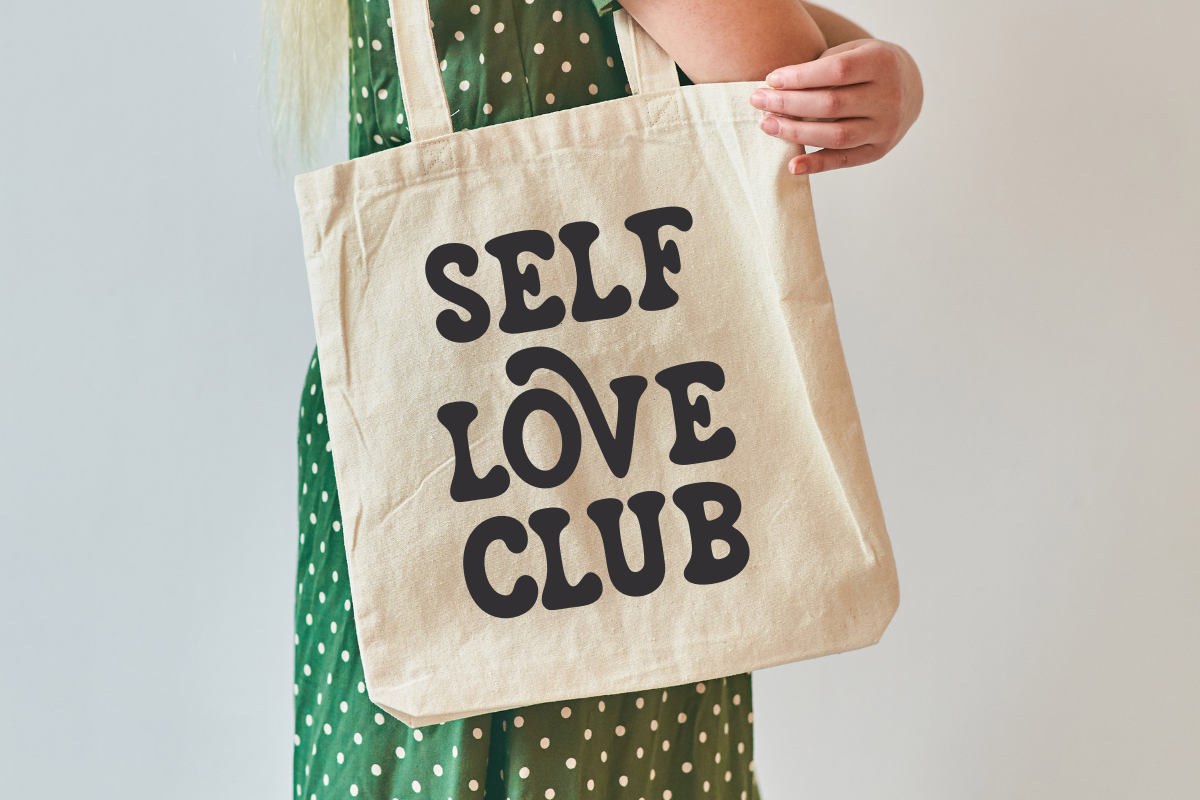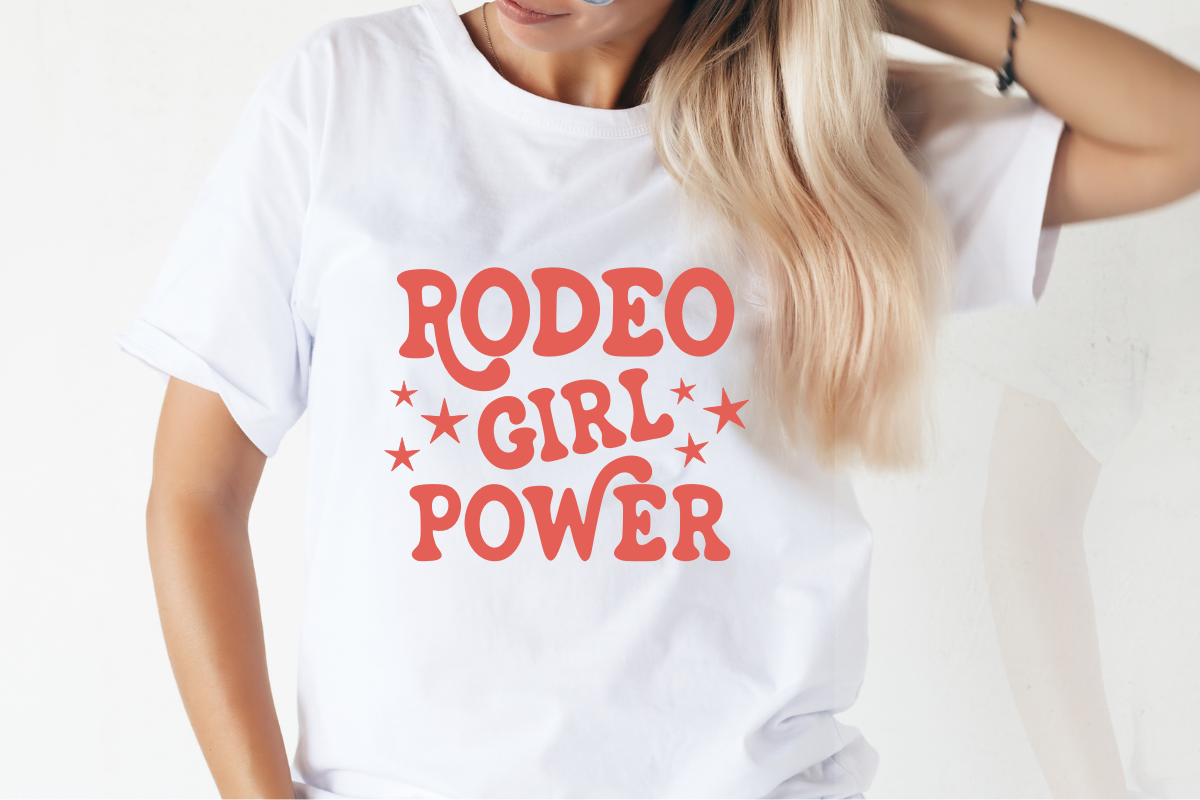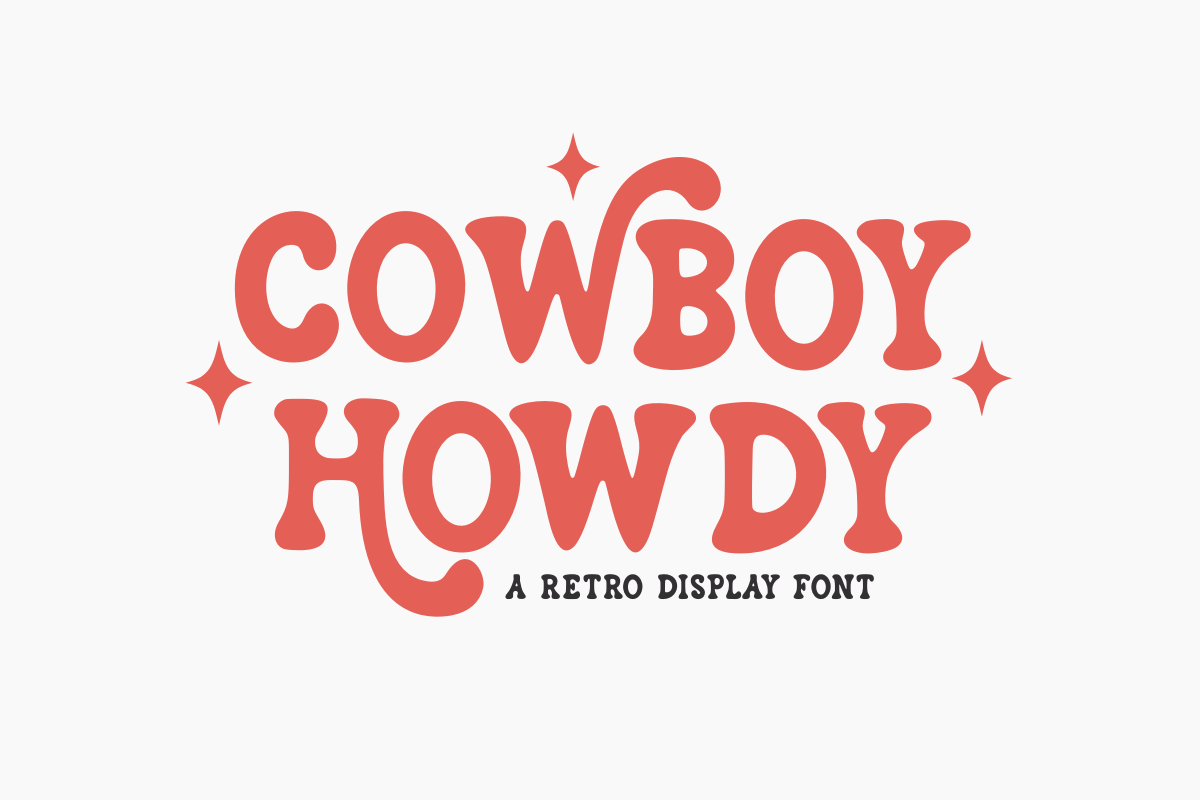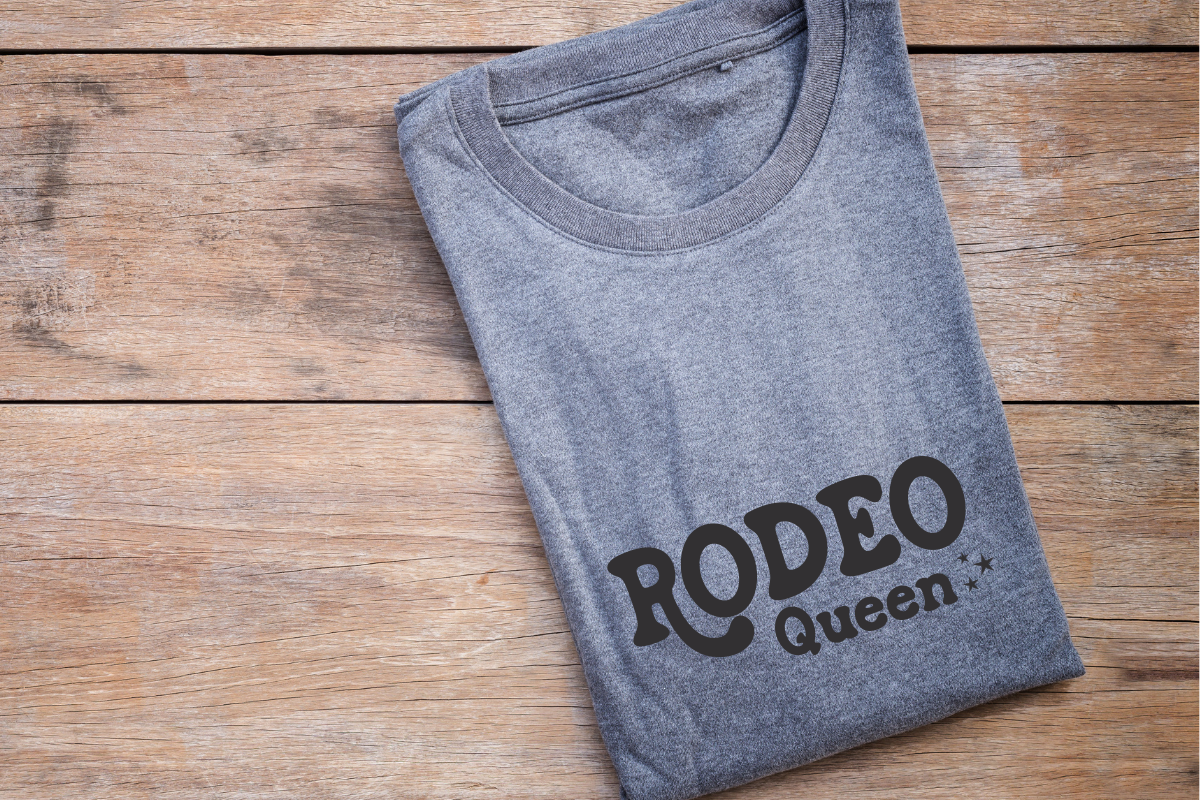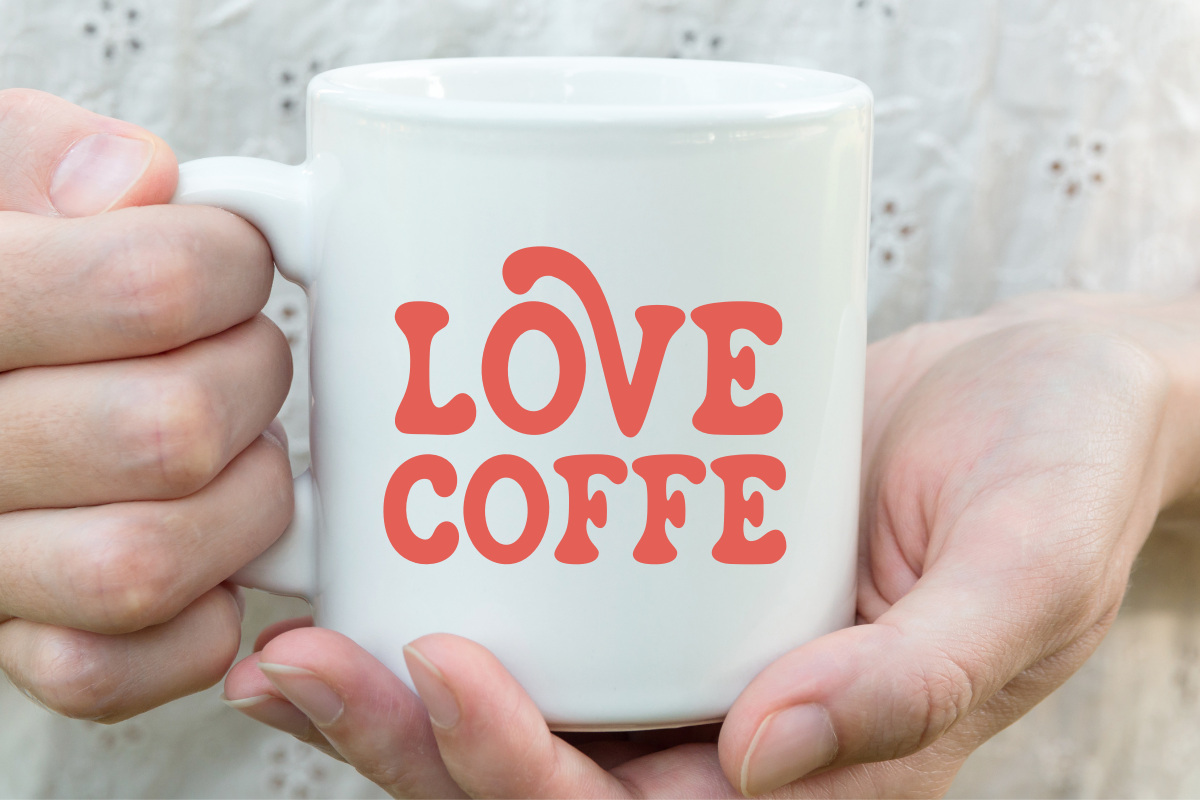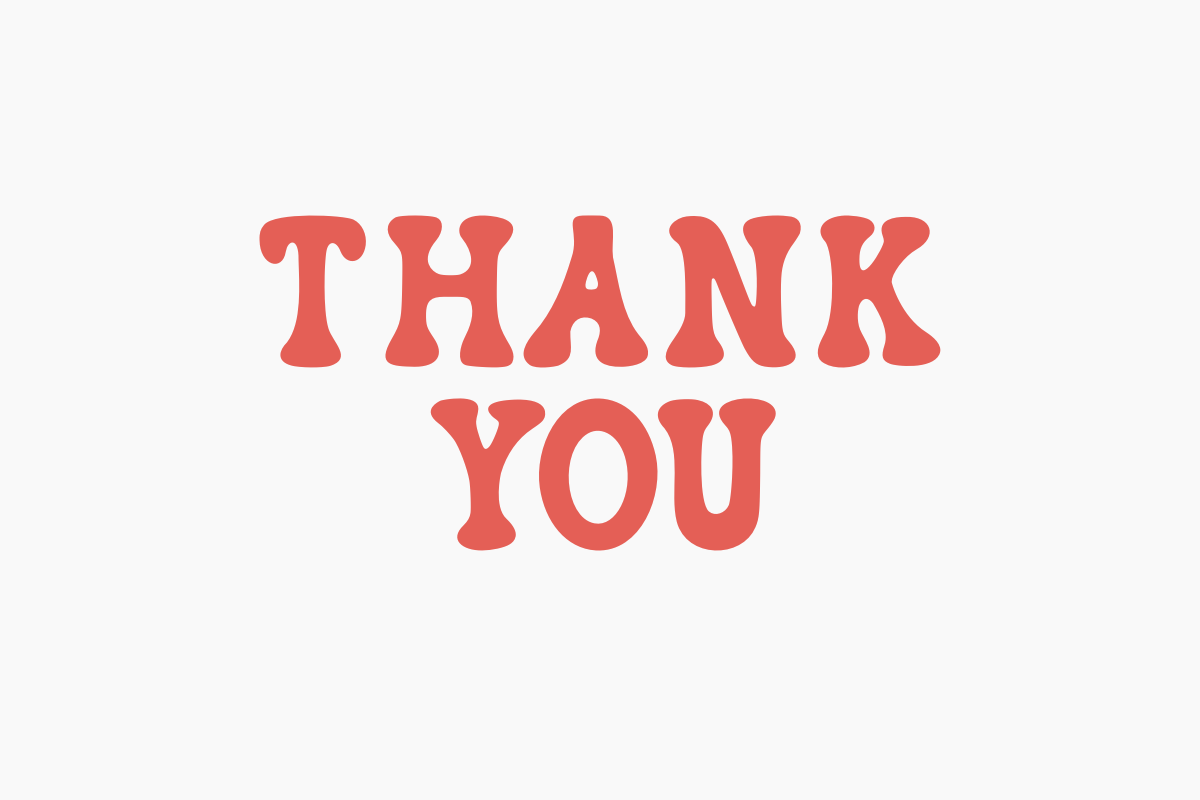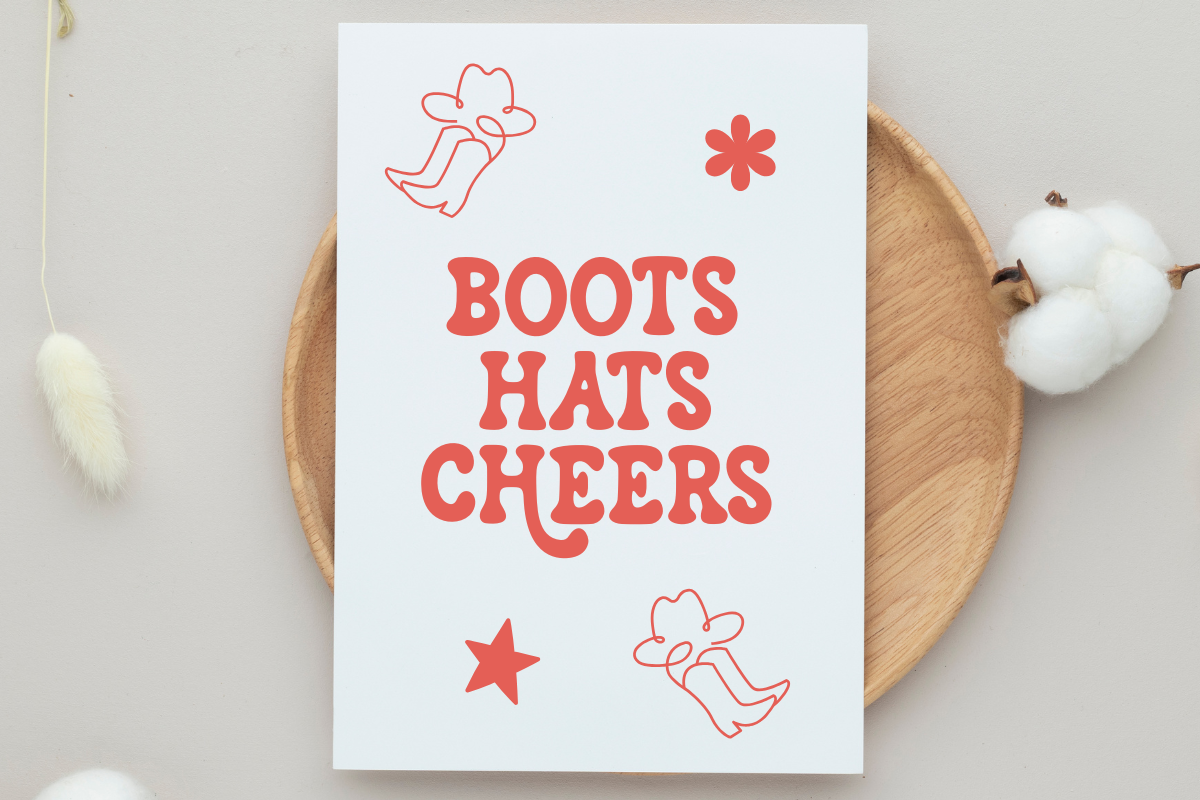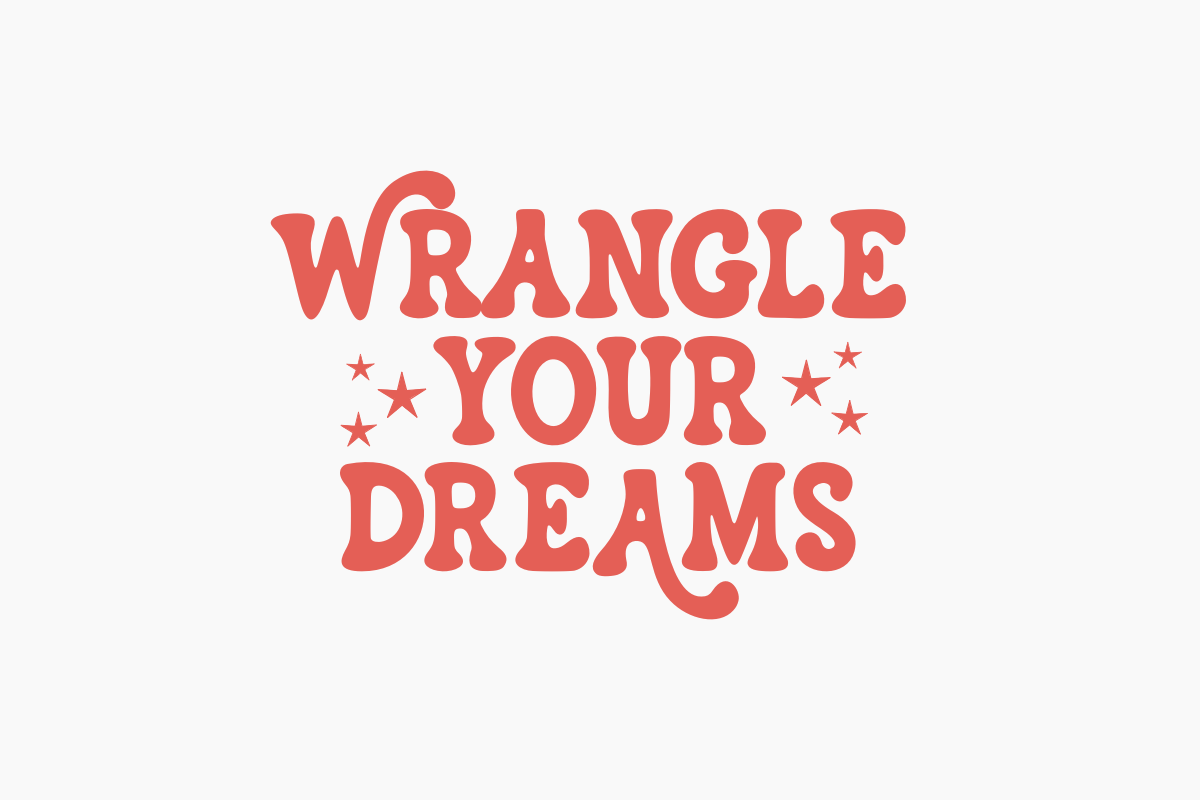
Cowboy Howdy - Retro Display Font
Cowboy Howdy is a spirited and bold retro display font that perfectly captures the adventurous essence of the American West with a modern, playful twist. This chunky font features soft, wavy curves and a unique bouncy rhythm, making it essential for western branding, trendy cowgirl aesthetic designs, festive rodeo posters, vibrant t-shirt prints, and engaging social media graphics. Its high-impact, thick letterforms ensure it stands out as a powerful display typeface for headlines and product packaging, appealing to designers seeking a nostalgic yet modern groovy look. Saddle up your creative projects with this charming and bold western font!